34 Free Script Fonts for Graphic Designers
Best free handwritten script fonts, brush fonts download 100% available for free. Free script fonts are perfect for branding, packaging, and any design projects. The handpicked collection of free script fonts can significantly improve your design by simply included them in the project you are working on. You can use these fonts in a web mock-ups, logo, tattoo, badges, emblems, headings, posters, Packaging, t-shirts/clothing, greeting cards, and wedding invitations, etc.
1. Felicity Handwritten Free Font Free Font
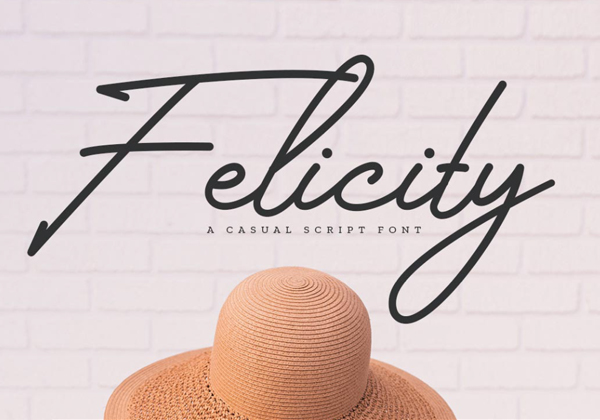
2. Mailston Script Free Font
3. Blueflare Handwritten Free Font Free Font
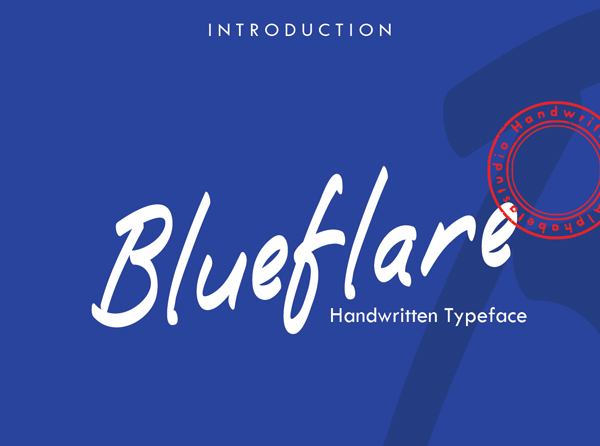
4. Smarta Handwritten Free Font Free Font
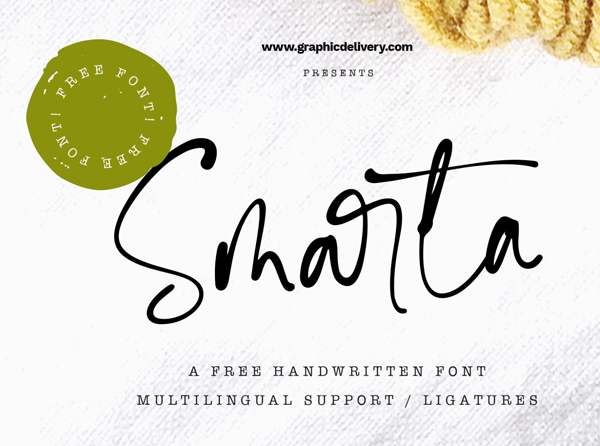
5. Piciaw Script Free Font
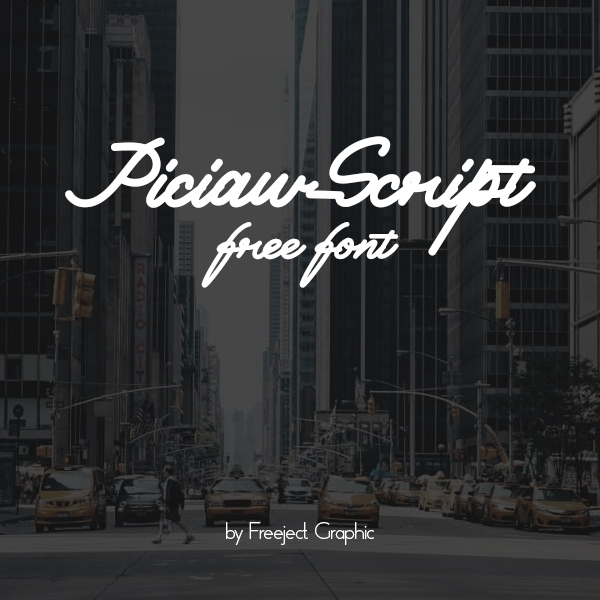
6. Senopathi Free Font Free Font
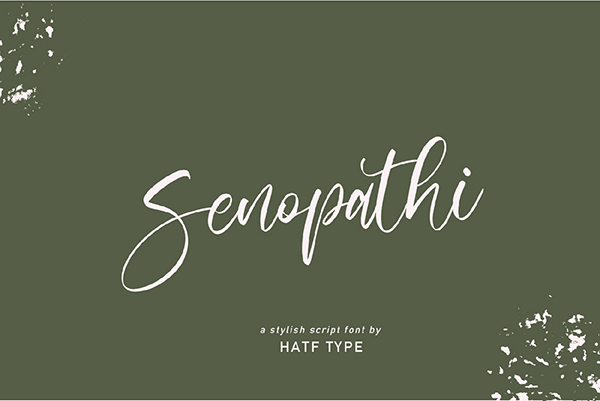
7. Louise Fleur Handwritten Free Font Free Font
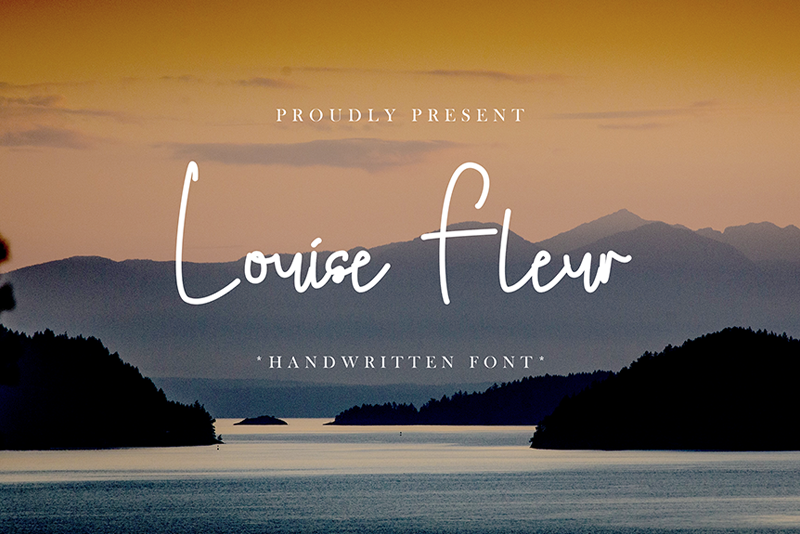
8. Kallem Script Free Font
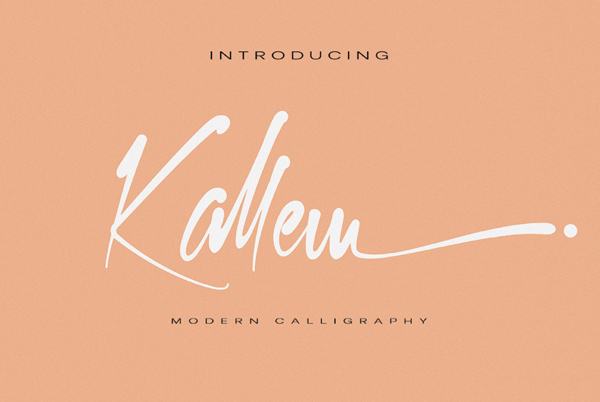
9. Bambi Handwritten Free Font Free Font
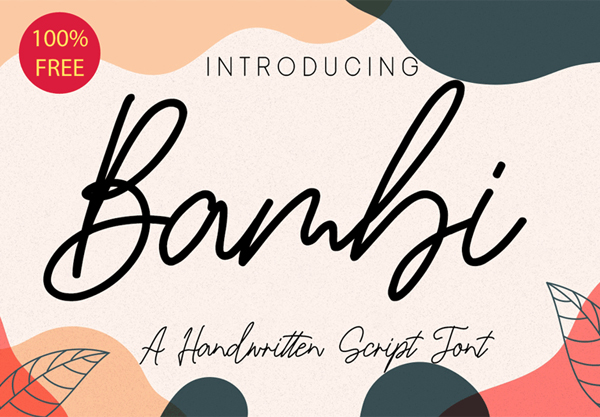
10. Adistro Brush Free Font Free Font
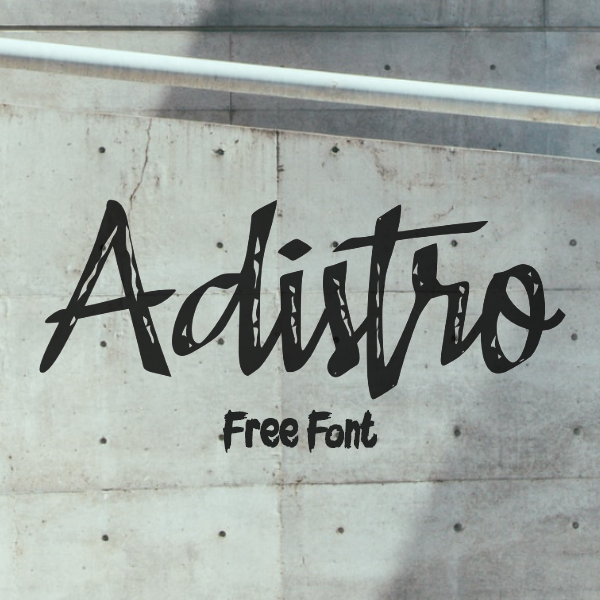
11. Cloudy Night Hand Written Script Free Font
12. Amazing Mother Script Free Font
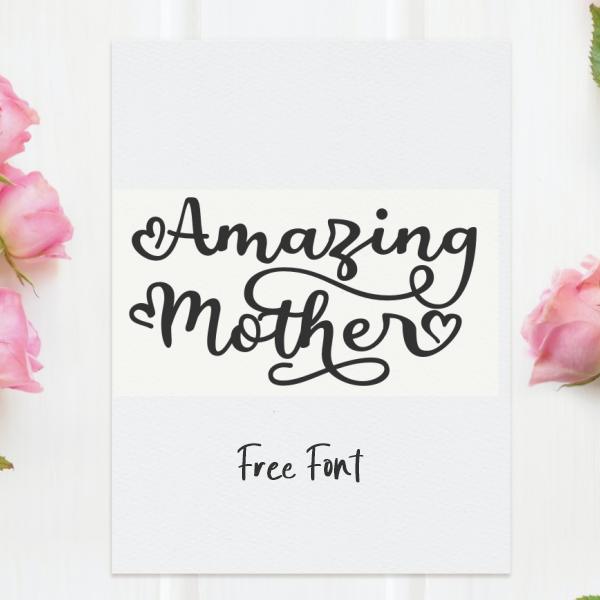
13. Refadhiana Lajuba Script Free Font
14. Hotel Lorint Brush Script Free Font
15. Cooless Brush Free Font Free Font
16. Melistoria Script Free Font
17. Ochre Script Free Font
18. Sunset City Monoline Script Free Font
19. Braindly Monoline Script Free Font
20. Summer Vibes Free Font Free Font
21. Celliad Script Free Font
22. Klepon Ijo Handwritten Free Font Free Font
23. Home Script Free Font
24. Beauty Flawless Script Free Font
25. Awali Hand-Written Free Font Free Font
26. Anstery Script Free Font
27. Quentin Handwritten Script Free Font
28. Magiera Script Free Font
29. Sexy Beauty Free Font Free Font
30. Gathenbury Script Free Font
31. Merciana Script Free Font
32. Dexotick Free Font Free Font
33. Pallawa Free Font Free Font
34. Khanza Calligraphy Free Font Free Font